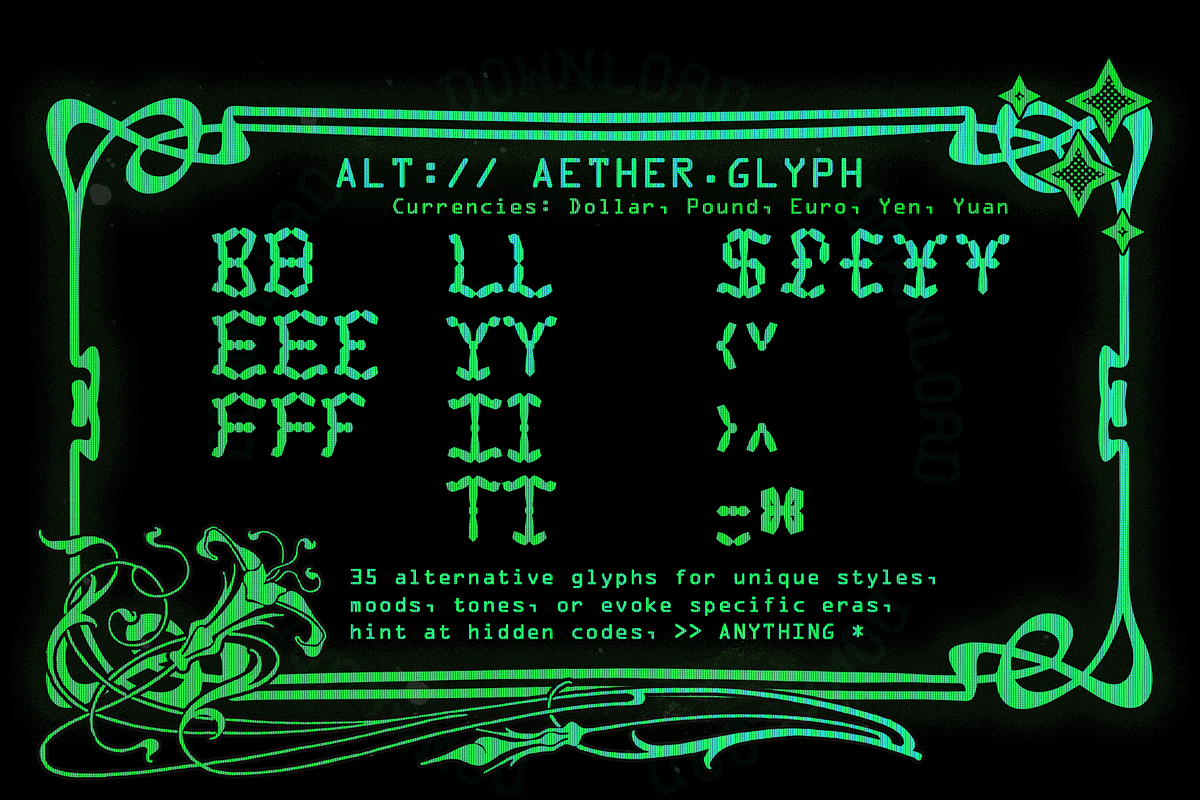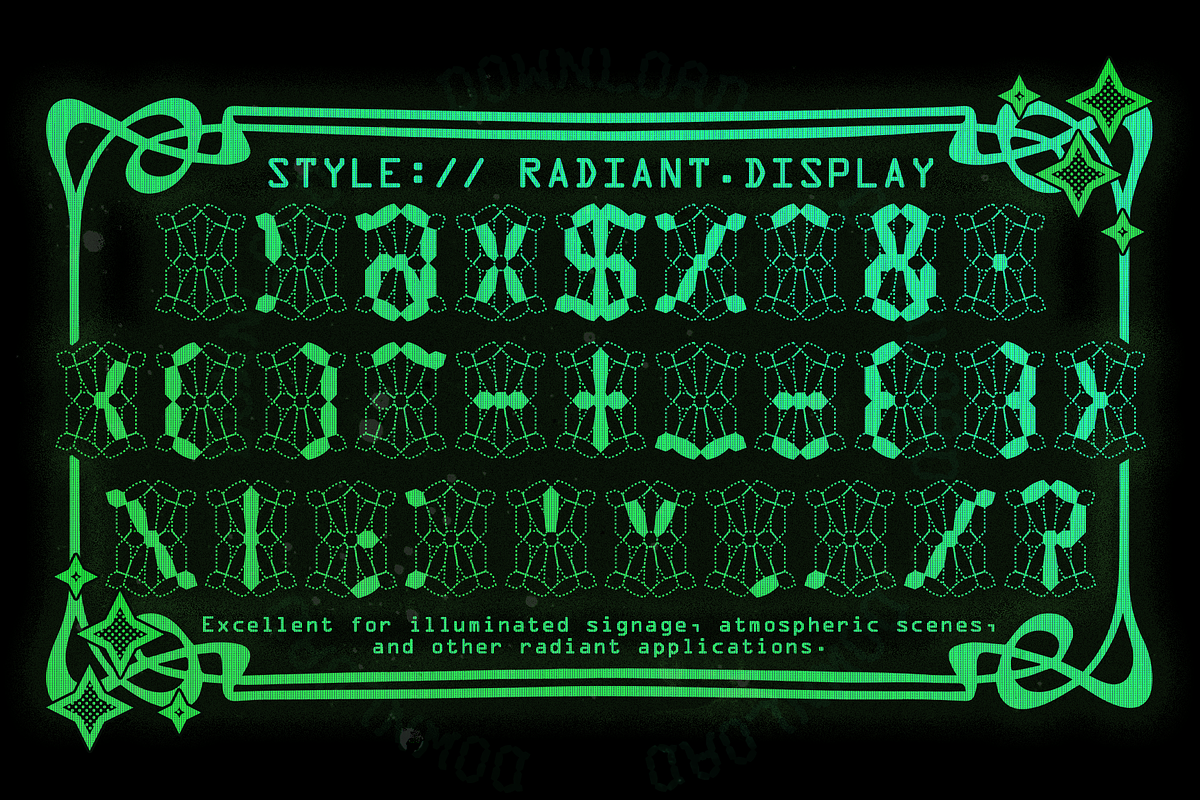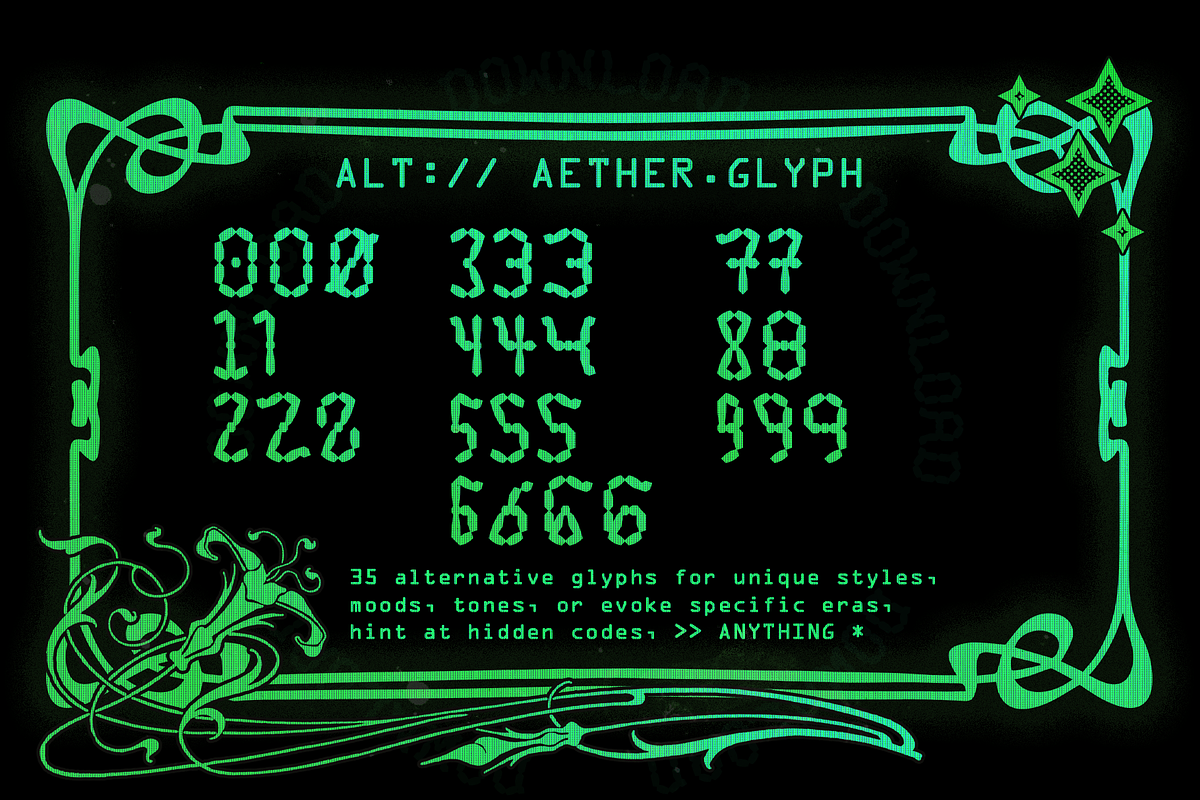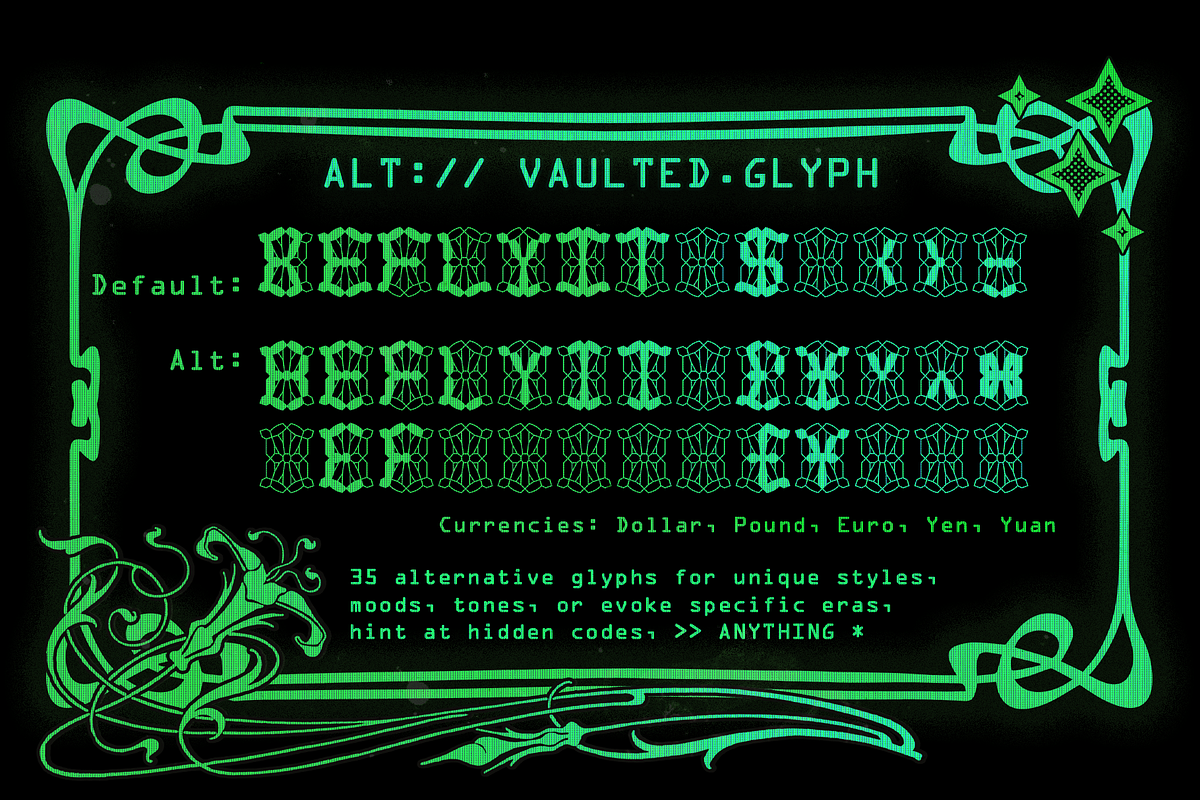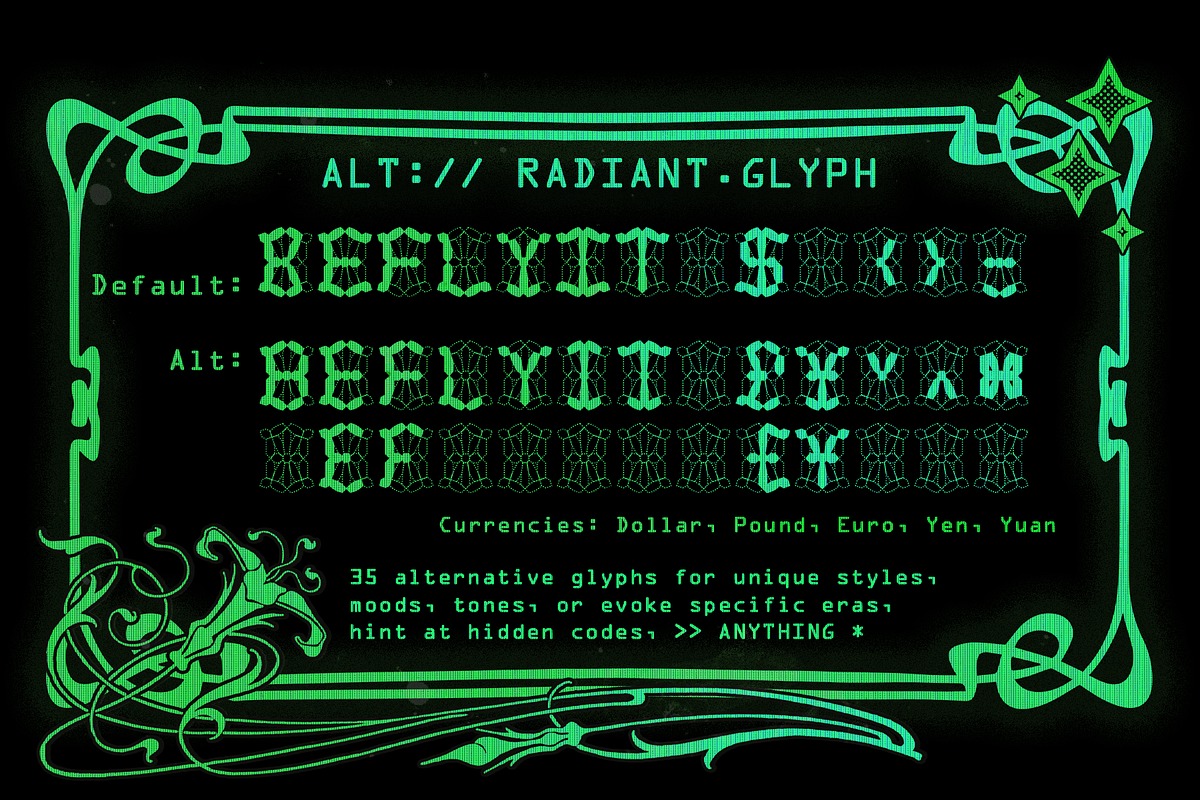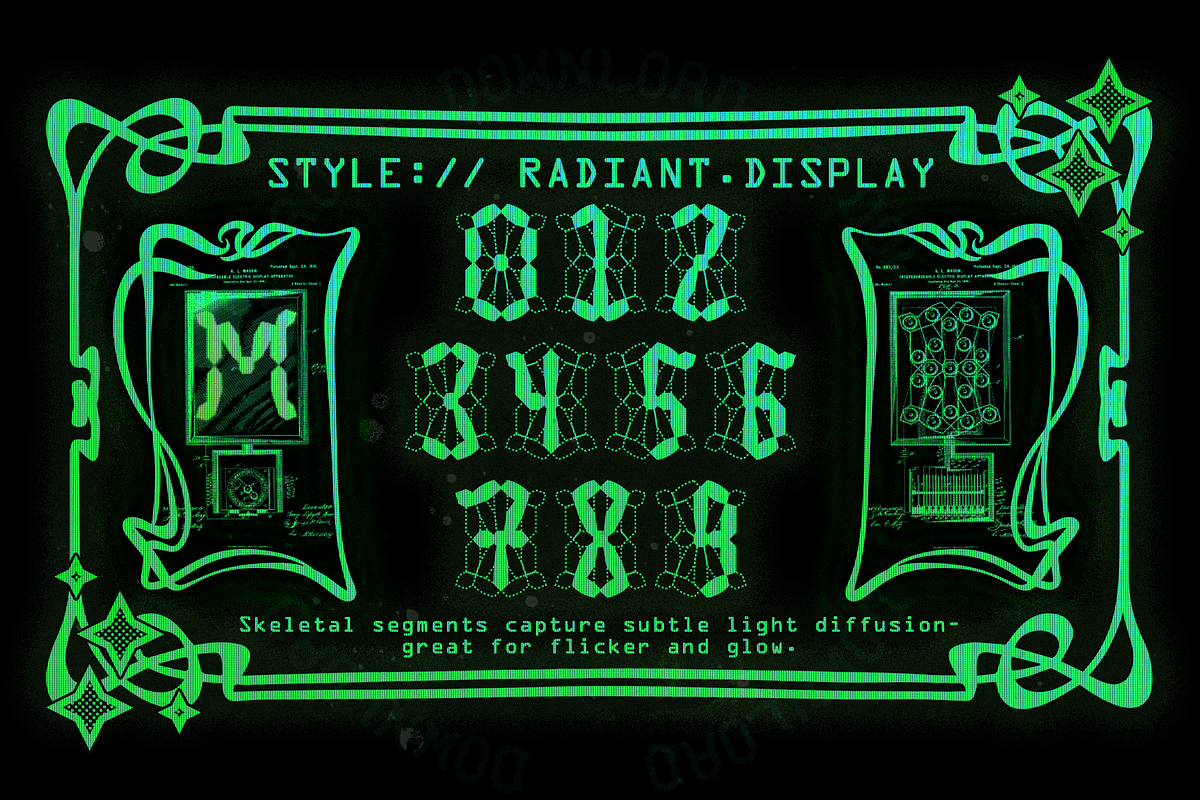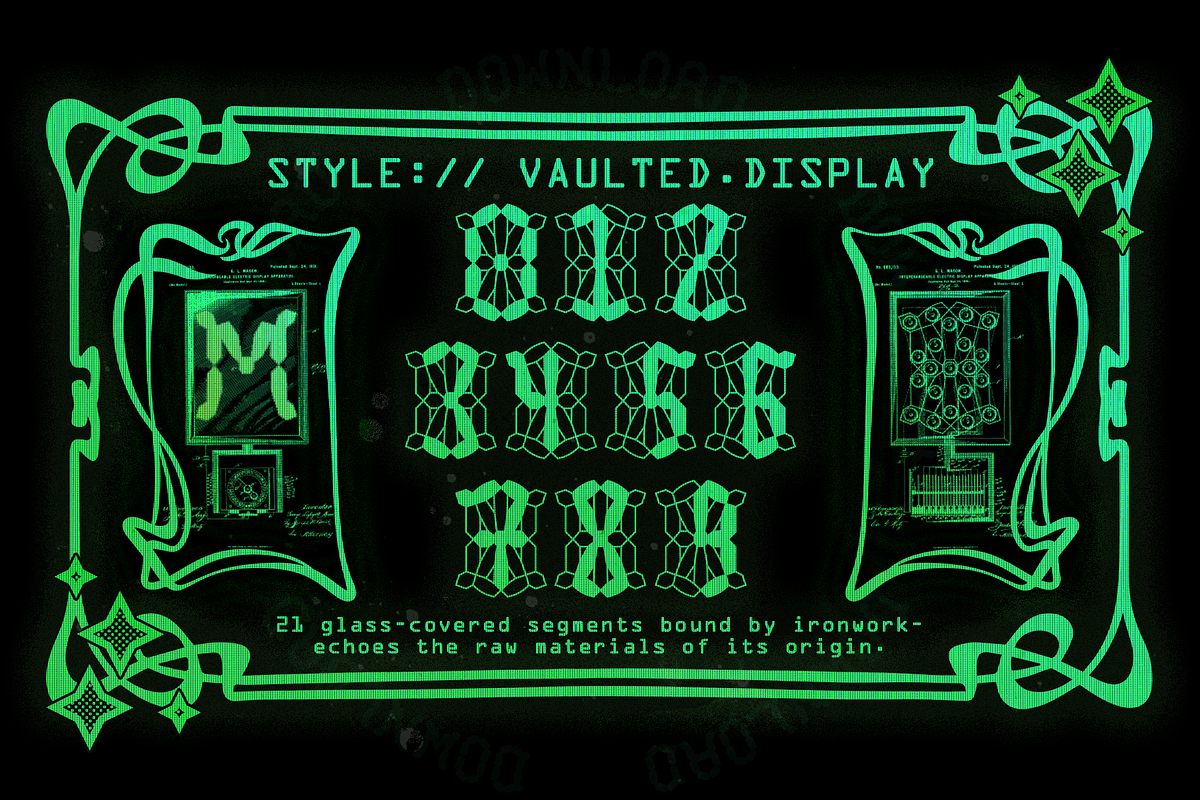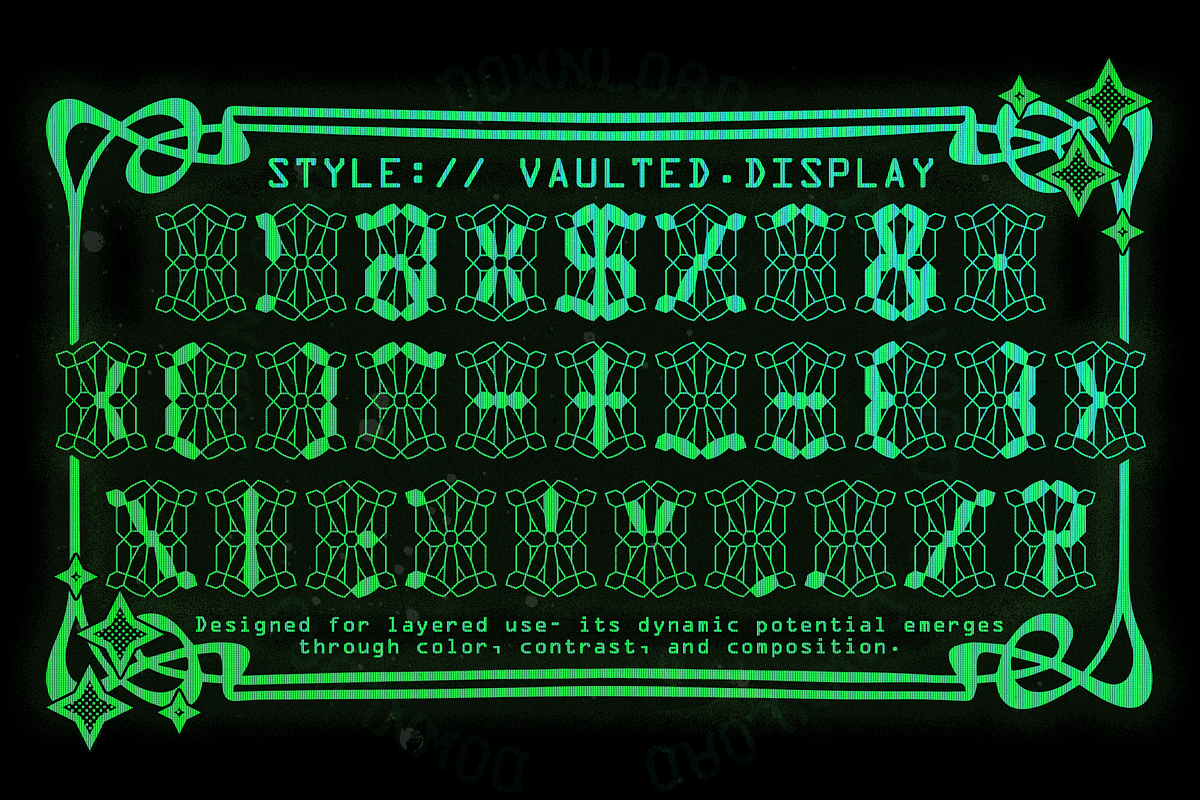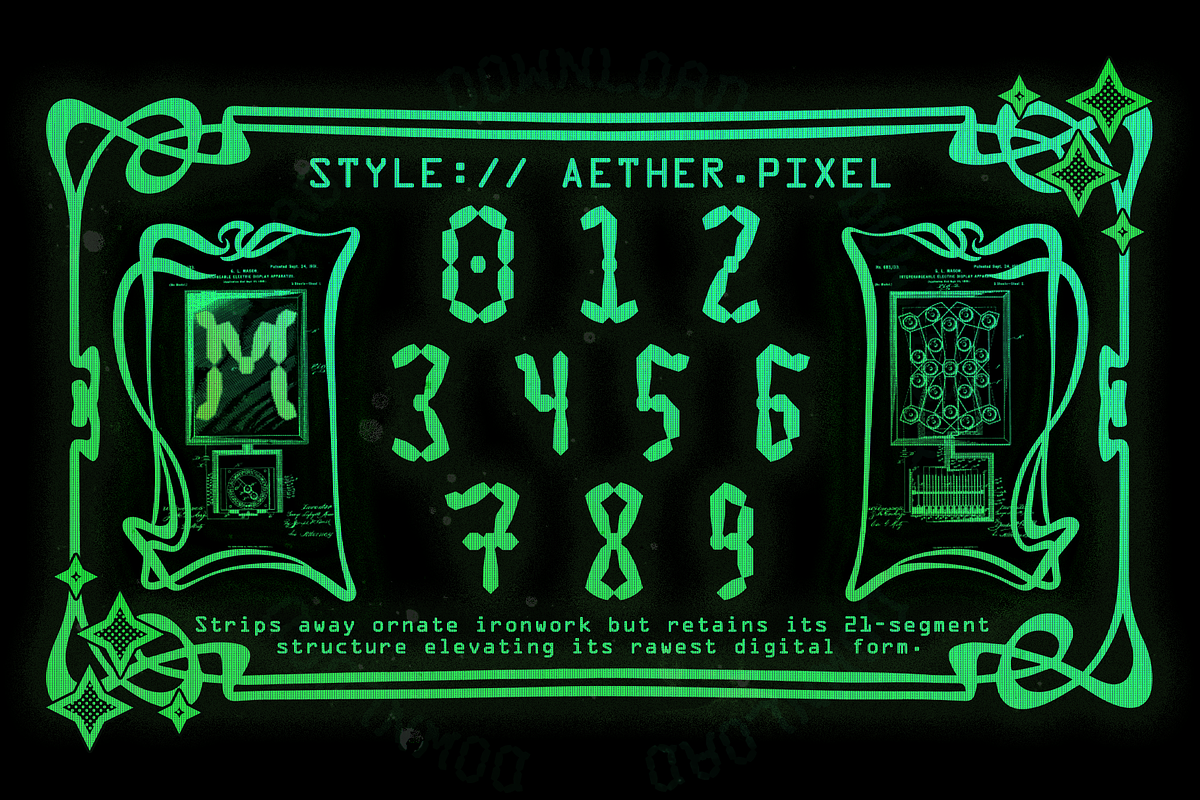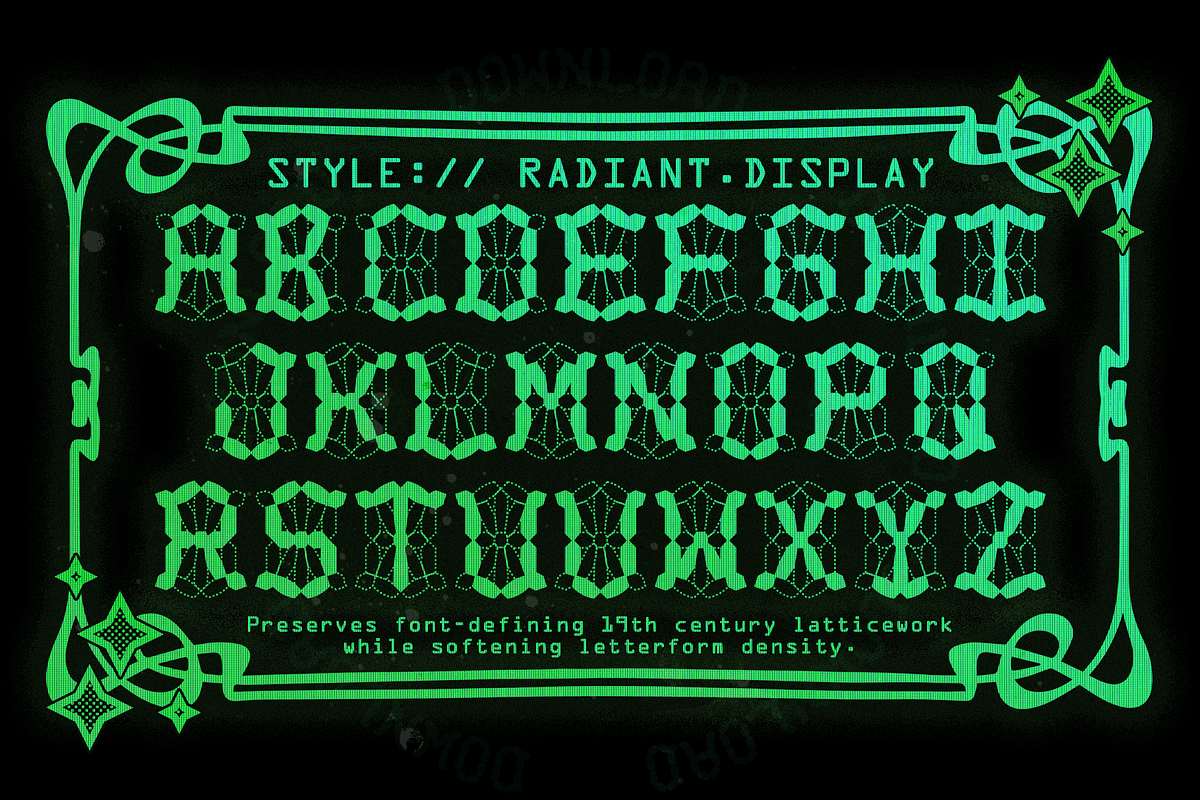
Phosfor Font Family | 3 Styles
PHOSFOR: 19th Century Digital for 21st Century Creators
Inspired by a single elegant letterform unearthed in George Mason's Interchangeable Electric Display Apparatus No. 683133 (Filed 1898.), Phosfor rescues one of humanities first segmented display systems from obsolete obscurity.
Each glyph meticulously crafted within Mason's original 21-segmented interchangeable illuminating framework – progenitor of pixel-based display technology five decades before "digital" existed.
Only described as an alphanumeric invention, Phosfor expands beyond the confines of Mason's ingenious machine with 33 never-before-considered special characters and symbols QWERTY ready.
On top of that! Phosfor includes 35 alternative glyphs for unique styles, moods, and implementations for unique diegetic storytelling angles.
Whether you're designing modern interfaces with a touch of fin du XIXe siecle mystique, creating period-appropriate tech, or building any combination of world building set pieces, Phosfor offers something rare: authenticity rooted in actual industrial innovation, adapted to modern creative needs.
- Phosfor Aether (Previously listed as "Phosfor Regular") A pixel-type font, Aether strips the ornate framing to reveal its purest digital core echoing vacuum fluorescent displays (VFDs) and early LED signage. Retaining its 21-segment structure, Regular balances historical precision with modern legibility, making it ideal for interfaces, retro-futuristic design, and dynamic display applications.
- Phosfor Radiant Mk.1 (Previously listed as "Phosfor Dashed") strikes the perfect balance between structure and readability, preserving the ornate 21-segmented frame while softening overall letterform density. Ideal for projects requiring clarity without sacrificing its defining Victorian-era latticework Dashed segments subtly capture and diffuse light making it effective for illuminated signage, atmospheric scenes, and other electric glow needs.
- Phosfor Vaulted (Previously listed as "Phosfor Inset") is the truest realization of the original 19th century vision, heavy segmented borders and illuminated glass captures the full dimensionality of this modular 21-segment display concept. This style evokes the weight and jank of unpolished early era of industrial engineering. Ideal for projects that demand a fusion of historical authenticity and layered visual impact.
Proto-digital precision ready to illuminate beyond the boundaries of time:
- "What if?" scenarios where past and future display technologies evolved differently
- Victorian-era setting game UI
- Steampunk novella involving scientific intrigue
- Modern period-accurate theatrical productions looking for something extraordinary
- Title text for slide decks, book covers, presentations, and web banners
- Victorian-inspired escape room puzzles and clue
- Specialty liquor/spirits labels with vintage appeal
- Themed restaurant menus (gastropubs, speakeasies)
- Music festival posters for electronic/experimental genres
- Cyberpunk tabletop RPG character sheets and status displays
- Luxury watch face designs for smartwatches and digital timepieces
- Modern computer interfaces with deliberately anachronistic styling
- Electric vehicle dashboard displays for manufacturers with heritage branding
For the speculative design inclined: What if digital displays took off in the 1890s instead of the 1940s –or more broadly—the 1960s? What if it were a prototype for our modern visual language?
Phosfor Font Family Vol. 1 | Hyp. 1898 | Est. 2025
Techno necromancy at its most elegant – a 19th century curio refusing relegation to the dustbin of history.